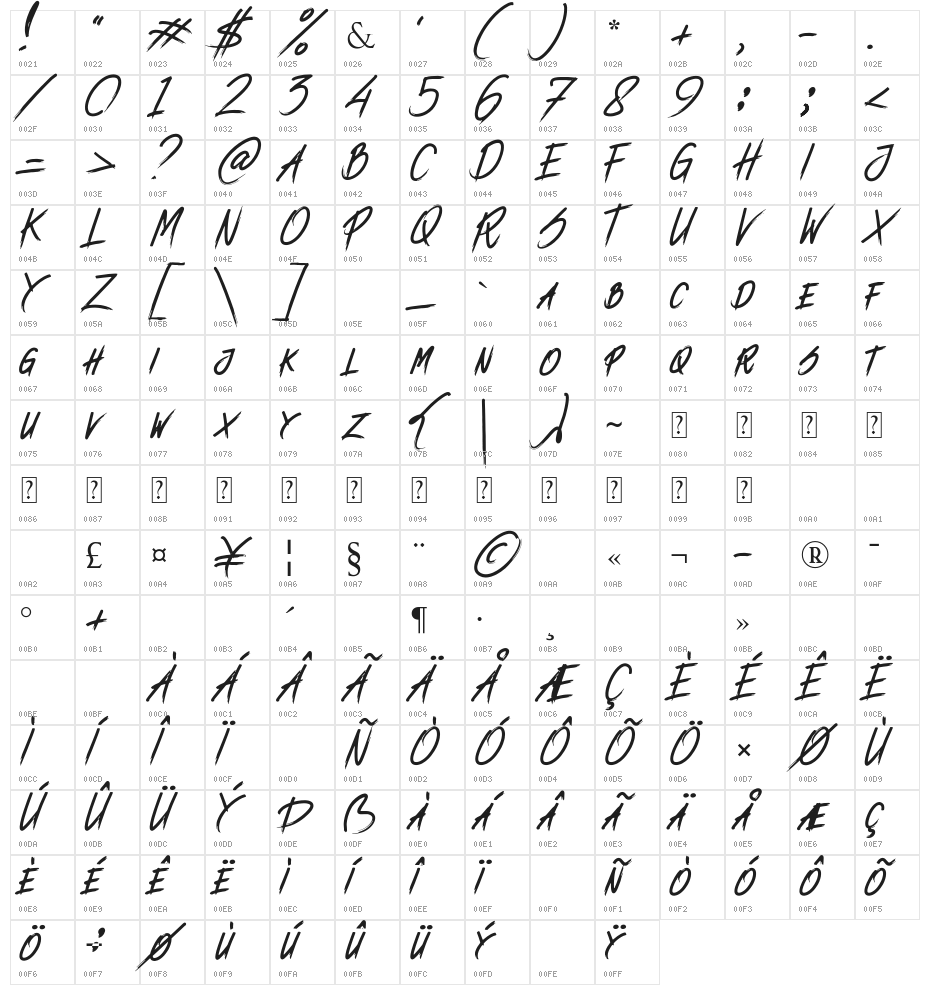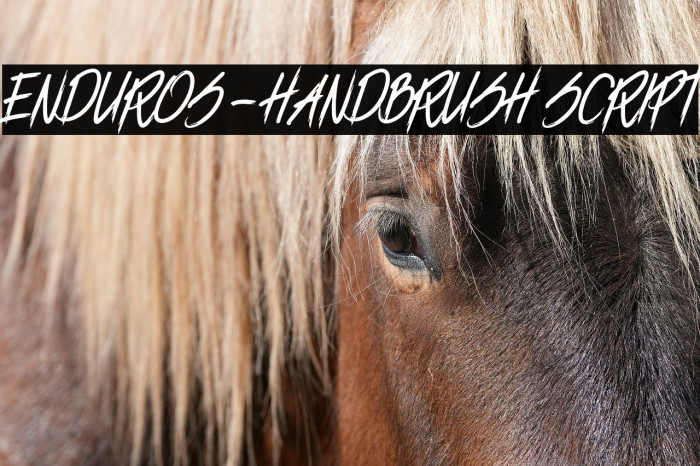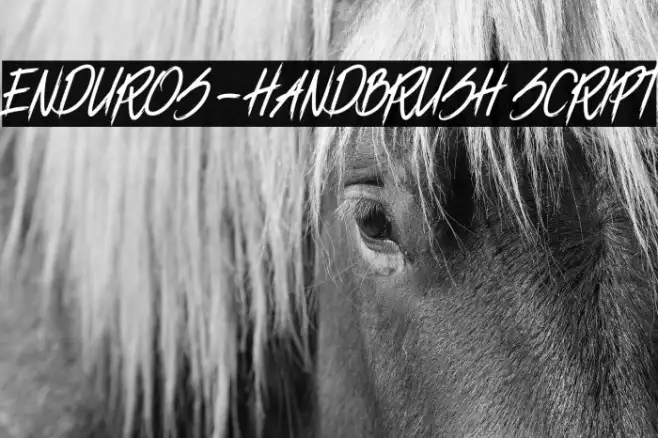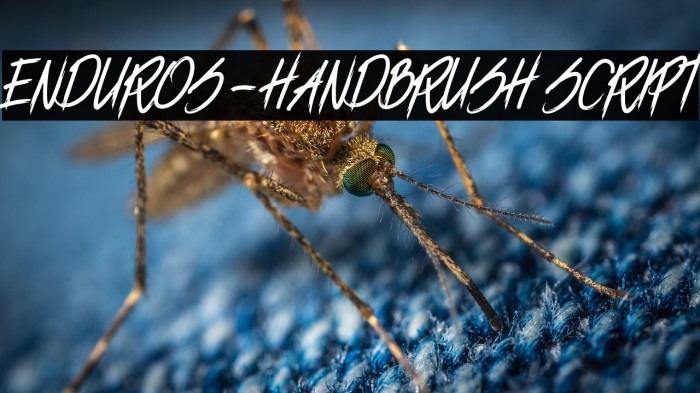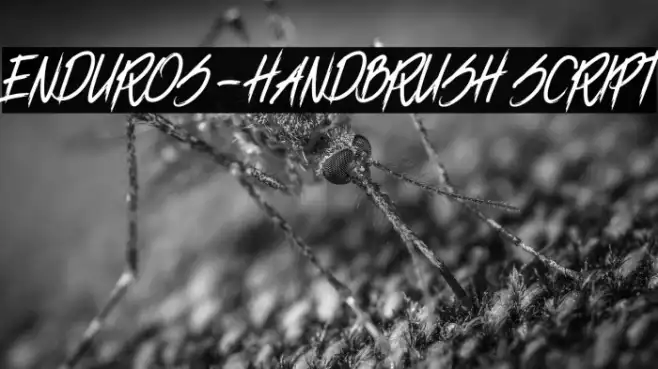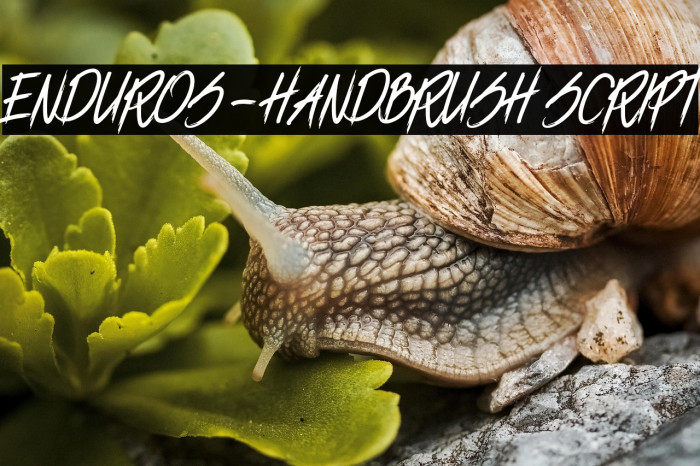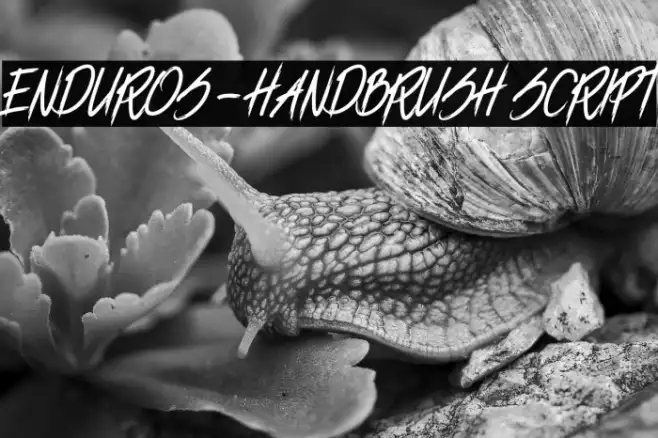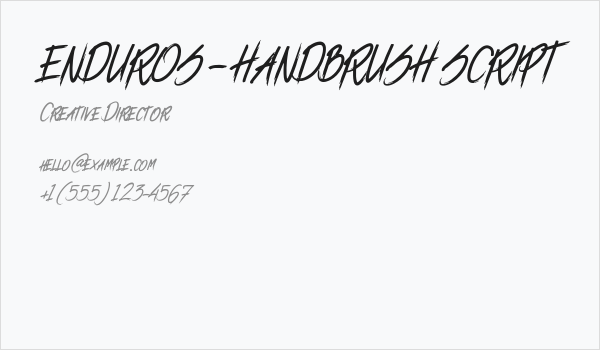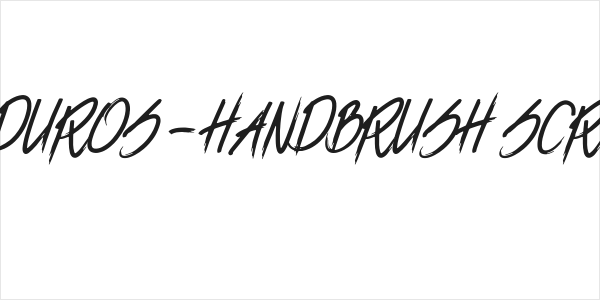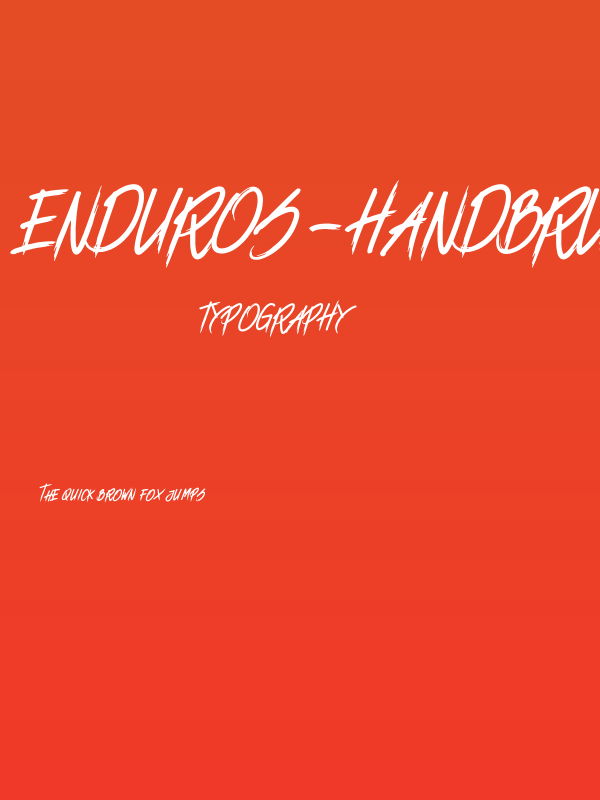
ENDUROS - HANDBRUSH SCRIPT Font
ENDUROS - HANDBRUSH SCRIPT Description
This font exudes a dynamic and energetic vibe, characterized by its bold, hand-brushed strokes that convey a sense of movement and spontaneity. The letters are crafted with a natural flow, mimicking the strokes of a brush, which gives it a raw and authentic feel. The uppercase and lowercase letters maintain a consistent style, with sharp angles and elongated forms that enhance its expressive nature. The numbers and special characters follow the same aesthetic, ensuring a cohesive look across all text elements. This font is ideal for projects that require a personal touch or a bold statement.
| Proposed Projects | Perfect for branding, posters, apparel design, and any project needing a bold, artistic touch. |